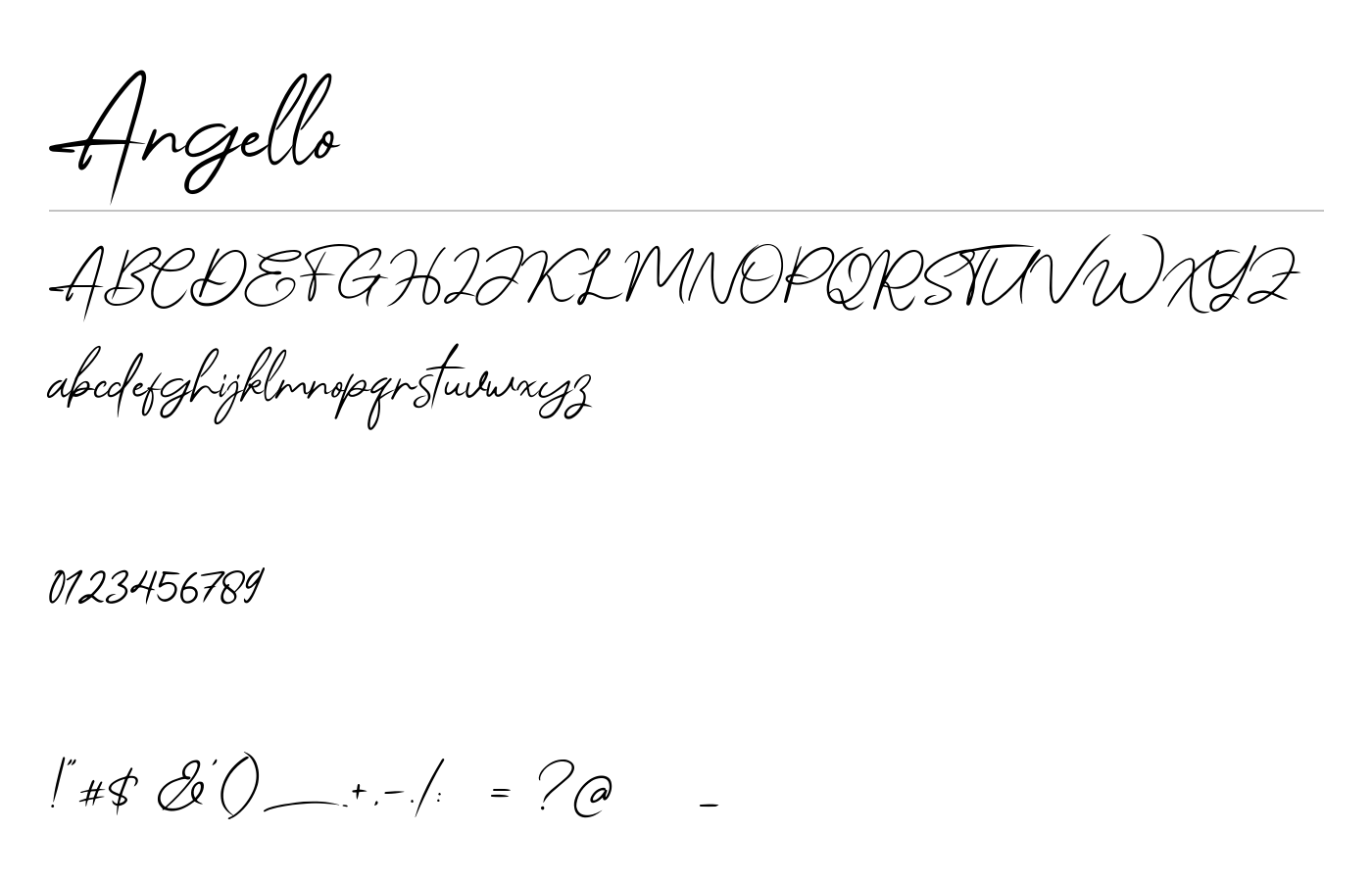
Angello is a delicate, handwritten script font featuring elegant, flowing strokes that give it a graceful and personal touch. Its narrow and slightly tall letterforms with smooth curves create an airy, refined look ideal for branding, invitations, and stylish editorial use where a sophisticated yet approachable feel is desired. This font works beautifully for projects needing a modern, handwritten charm with a sense of elegance and individuality.
Angello Font
About Angello Font